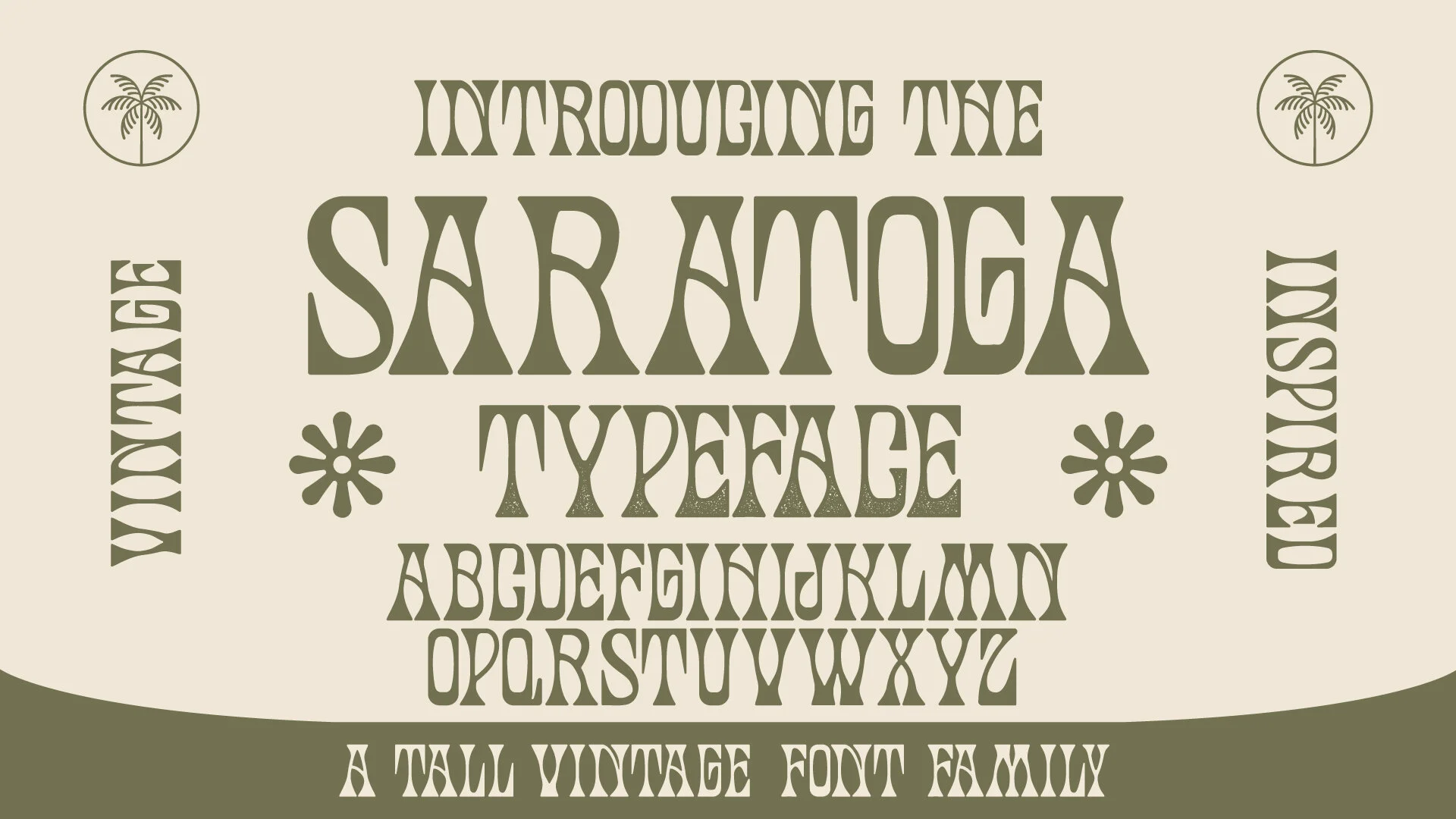
Saratoga Typeface
The Saratoga Typeface is a groovy semi-serif typeface. This blast from the past comes in two font styles including a textured version inspired by vintage psychedelic posters. Enjoy!